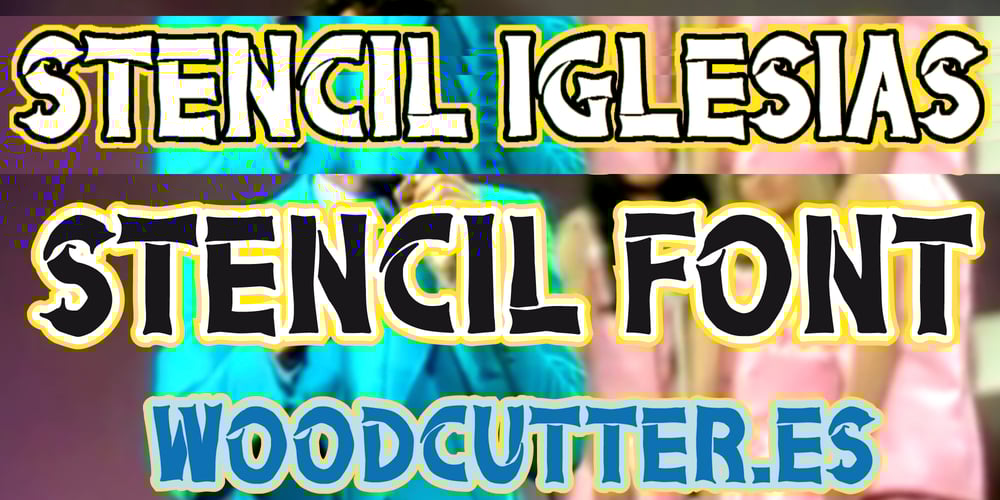
Stencil Iglesias
Stencil Iglesias font
Stencil Iglesias Font Family was designed by Jordi Manero and published by Woodcutter. Stencil Iglesias contains 1 styles and family package options. “Stencil Iglesias” is a decorative font with a subtle and curvy stencil style in uppercase. Each letter features elegant curves and open spaces, giving it a distinctive and sophisticated touch. Ideal for projects seeking a balance between classic and modern, adding a refined and artistic air to titles, headings, and creative designs. Perfect for invitations, posters, and any application requiring an ornamental and eye-catching aesthetic.